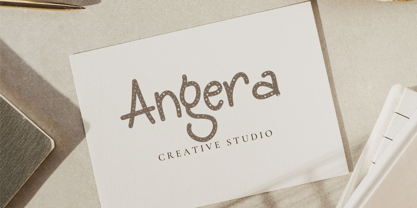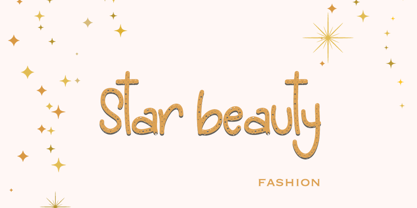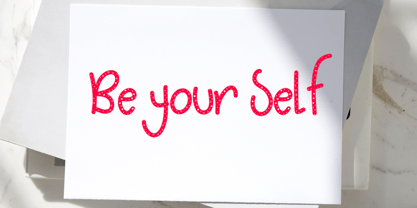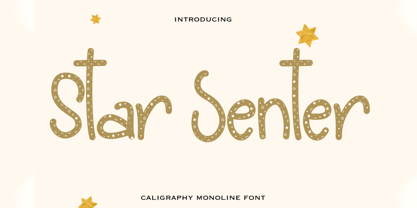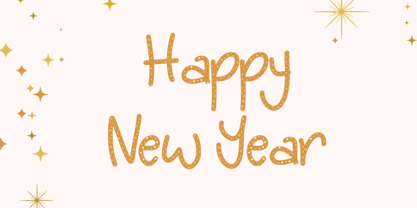
Star senter
by Cocodesign
The Star senter Font Family was designed by Muhammad Zaini and published by Cocodesign. Star senter contains 1 styles.
Star senter calligraphy, simple, and cute monoline font. Its simplicity made this font can be used for wide ranges of design projects, especially designs that need handwritten and cuteness touch.
Star senter is perfect font for any projects, such as wedding invitation, t-shirt design, crafting, sticker, sublimation, and many more.
Designers: Muhammad Zaini
Publisher: Cocodesign
Foundry: Cocodesign